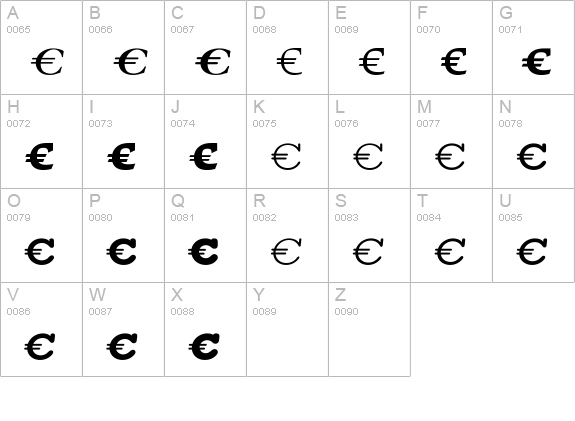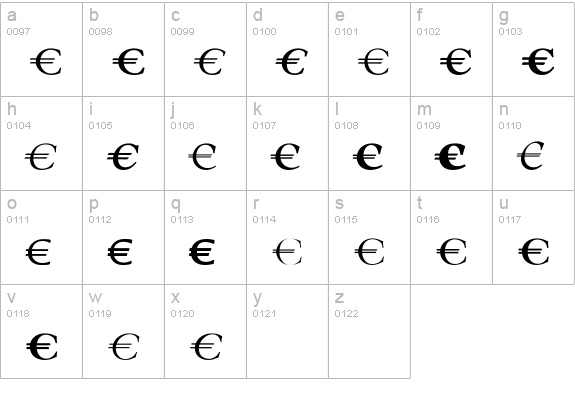
EuroSerifEF-Four font is a stunning typeface that combines classic elegance with a modern twist. Its sleek and sophisticated design makes it perfect for a wide range of design projects, from branding to editorial layouts. The clean lines and balanced proportions of EuroSerifEF-Four font exude professionalism and refinement, making it a versatile choice for both print and digital applications. What sets EuroSerifEF-Four font apart is not just its aesthetic appeal, but also the fact that it is available for free. Yes, you read that right - this high-quality font can be downloaded at no cost from FontsMarket.com. Whether you're a seasoned designer looking to add a fresh font to your collection or a novice exploring typography for the first time, EuroSerifEF-Four font is a fantastic option that won't break the bank. So why wait? Enhance your projects with the timeless beauty of EuroSerifEF-Four font today, and let your creativity shine with this exceptional typeface that is both stylish and accessible. Download it for free at FontsMarket.com and elevate your designs to new heights.